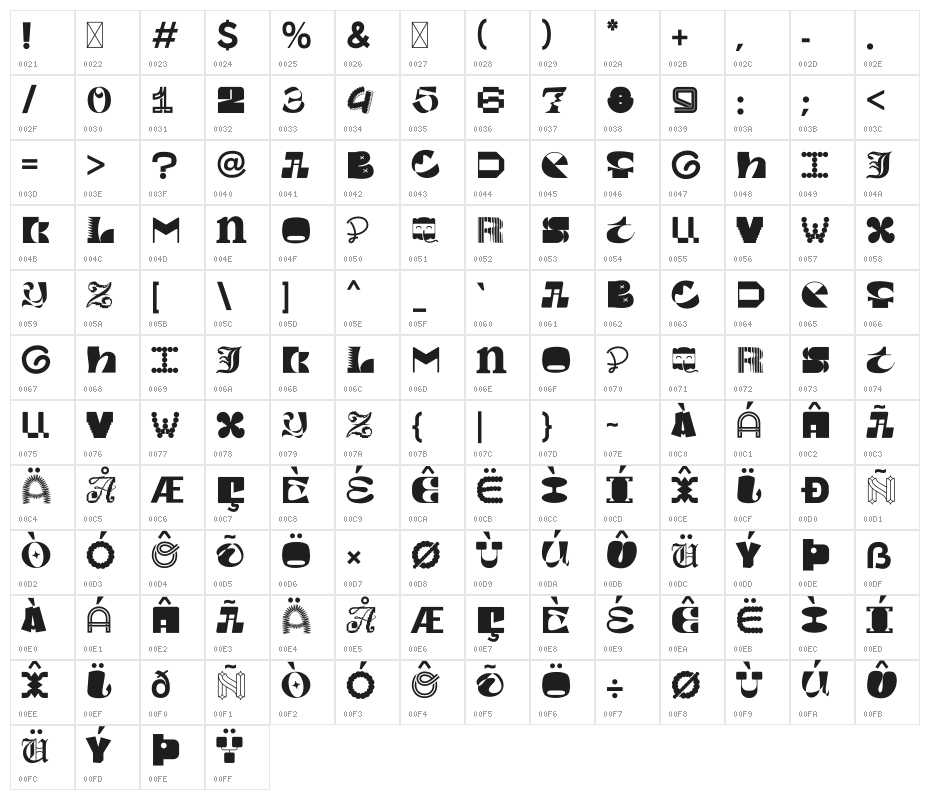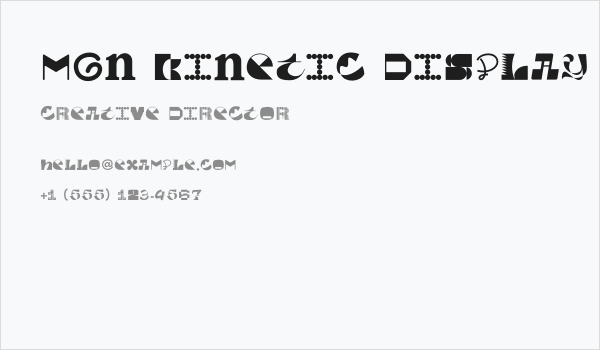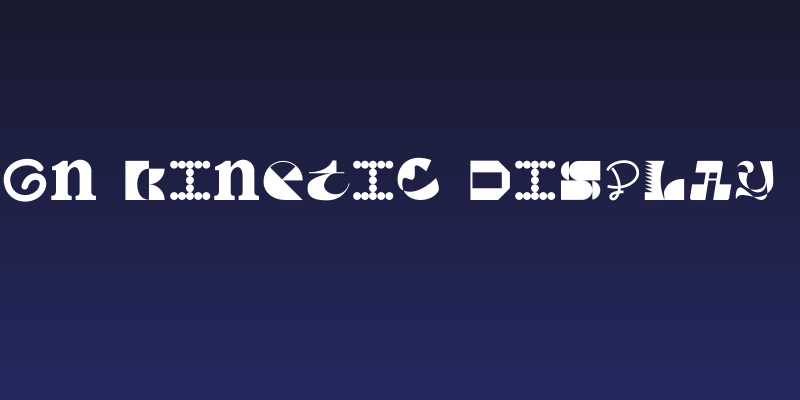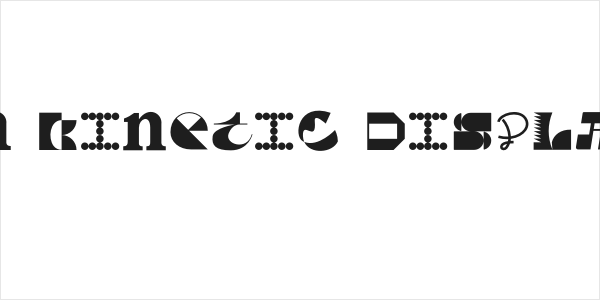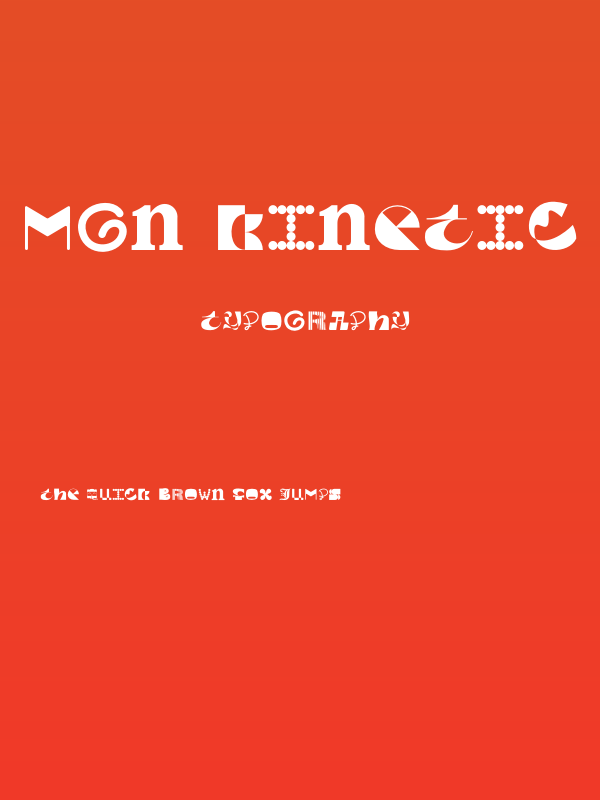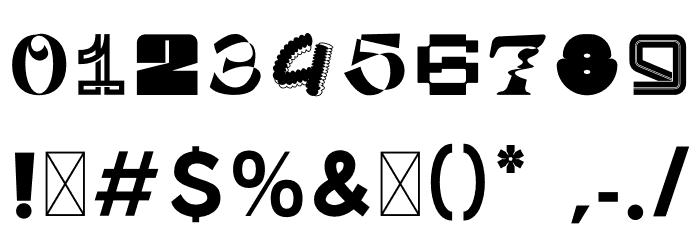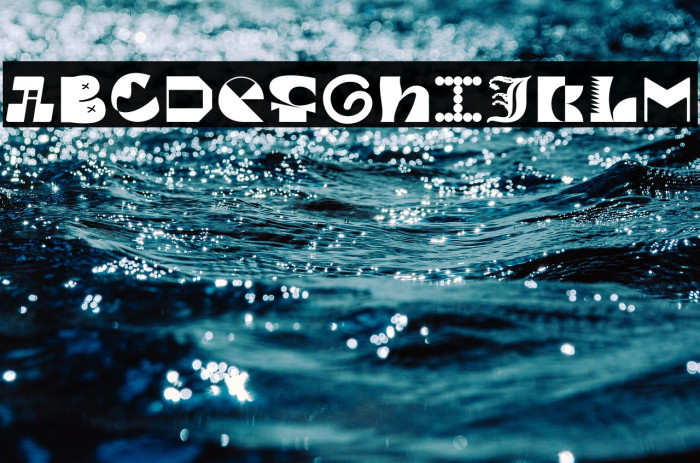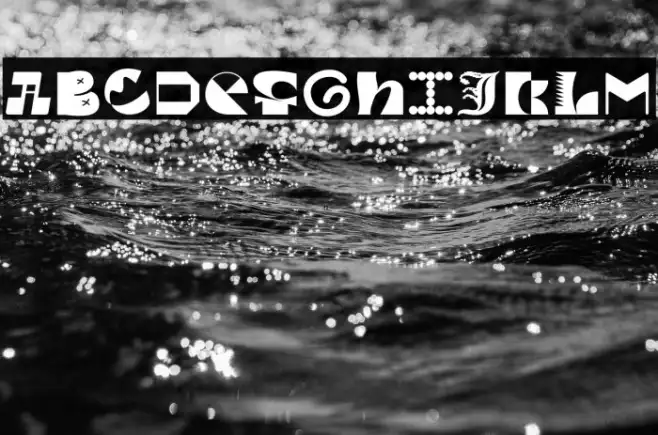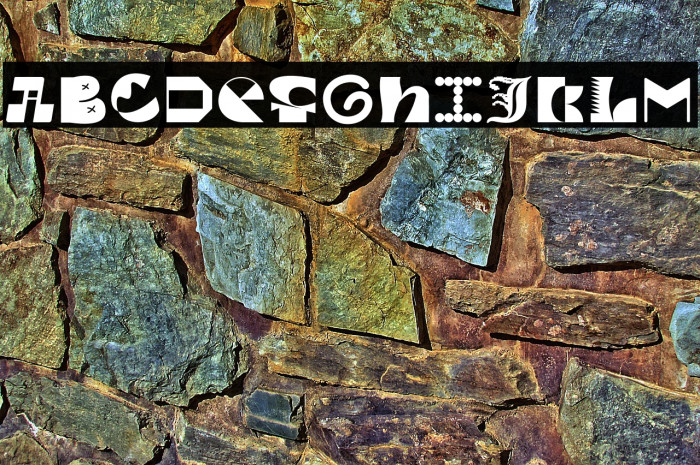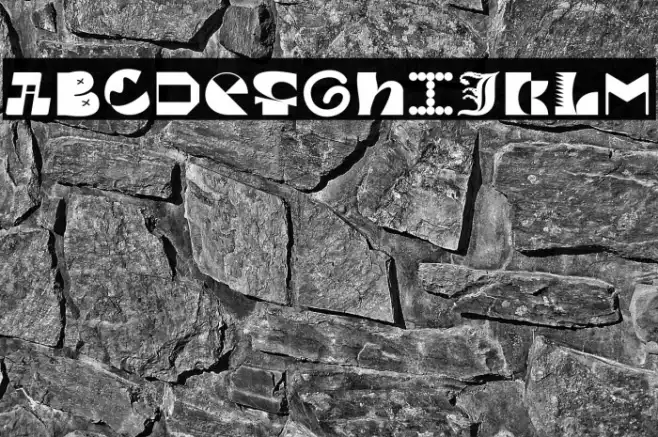
MGN Kinetic Display 6 Font
MGN Kinetic Display 6 Description
This font is a highly decorative and eclectic typeface that combines various artistic elements within each character. Each letter is uniquely styled, incorporating geometric shapes, patterns, and abstract forms, creating a dynamic and visually engaging appearance. The font features a mix of solid and outlined elements, with some characters showcasing intricate details like dots, stripes, and swirls. The numbers and special characters follow the same creative approach, adding to the font's overall playful and artistic vibe. This typeface is designed to capture attention and make a bold statement, making it ideal for creative and unconventional design projects.
| Proposed Projects | Ideal for creative projects such as posters, album covers, branding for artistic ventures, and any design work that requires a bold and unconventional typeface. |